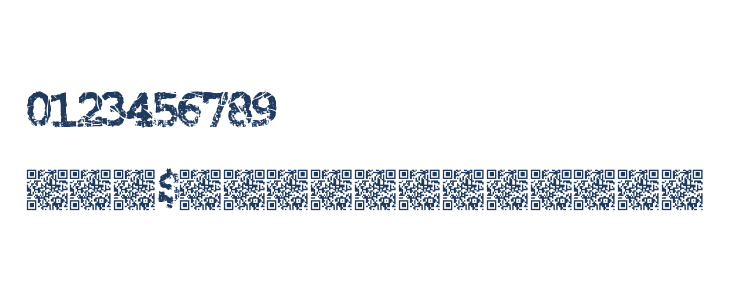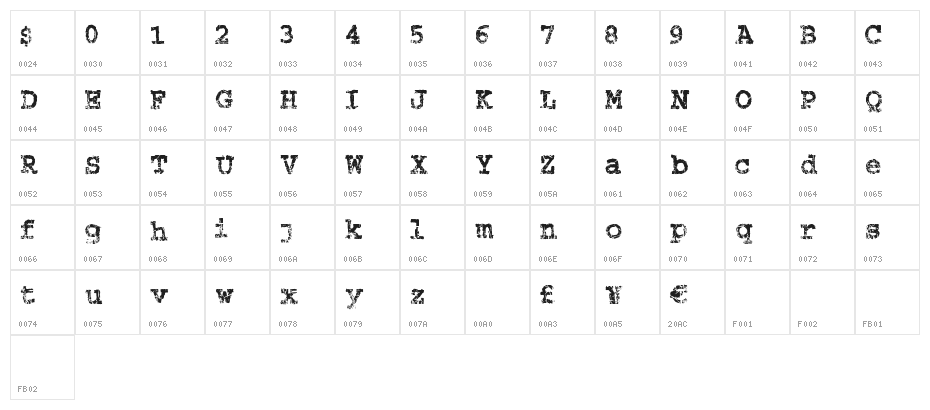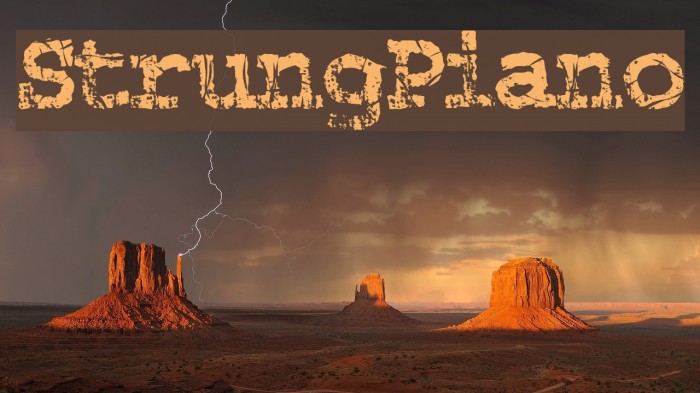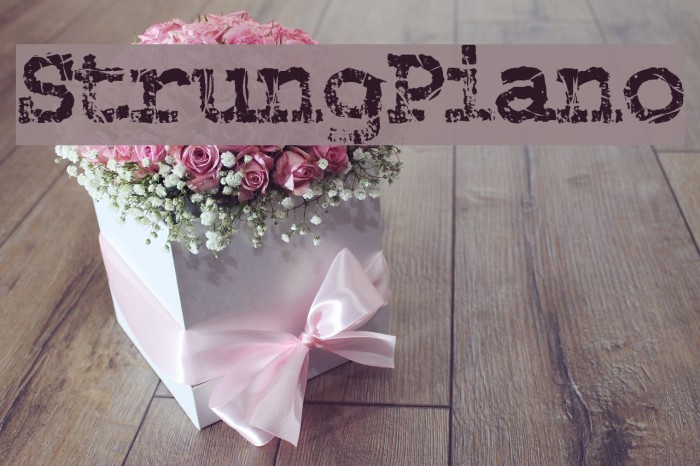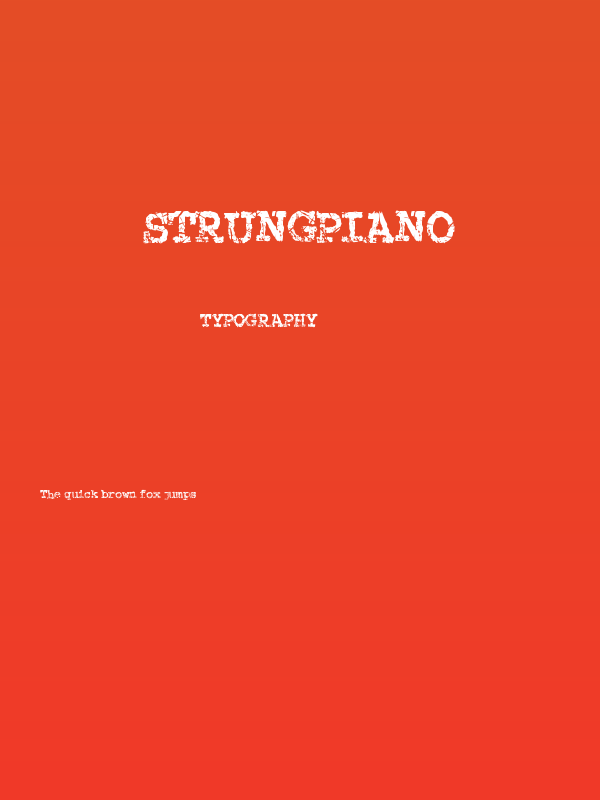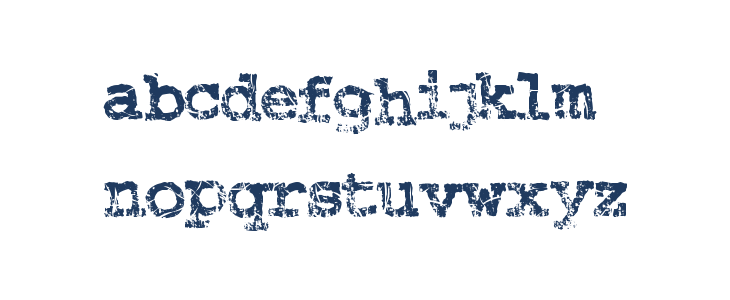
StrungPiano Font
StrungPiano Description
This font exhibits a distressed, grunge style with a textured appearance that gives it a worn and rugged look. The characters are bold and have a rough, uneven surface, reminiscent of aged or weathered materials. This style adds a dynamic and edgy feel, making it suitable for projects that aim to convey a sense of rawness or authenticity. The uppercase and lowercase letters maintain a consistent design, with numerals and special characters following the same aesthetic. The font's unique texture makes it stand out, ideal for creative and artistic applications.
| Overall Style | Grunge, Artistic |
| Proposed Projects | Album covers, posters, urban-themed designs, and artistic branding. |